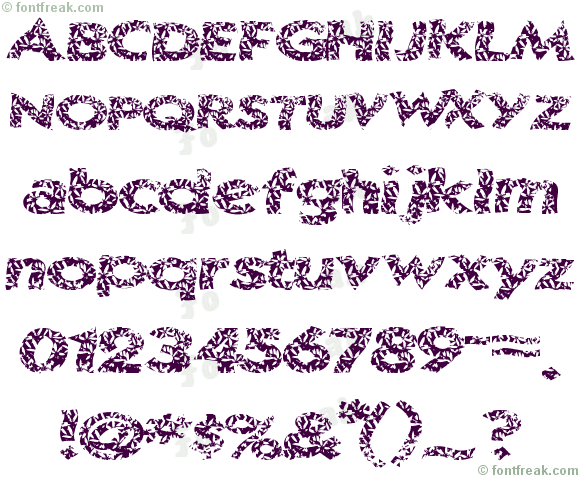
SurfShack
Introducing the SurfShack font by Xerographer Fonts, a unique display typeface that embodies the essence of beach culture and laid-back vibes. Released in 2012, this freeware typeface is perfect for those looking to add a touch of fun and whimsy to their designs. The SurfShack font features a playful, hand-drawn aesthetic, characterized by its uneven stroke weights and organic shapes that mimic the fluidity of ocean waves. The slightly irregular spacing between letters adds to its casual charm, making it an excellent choice for projects that require a relaxed and inviting feel.
This versatile font shines in various use cases, including surf shop branding, beach-themed event flyers, and summer party invitations. Its distinctive style is also ideal for creating eye-catching restaurant menus, particularly for eateries that emphasize a coastal or surf-inspired theme. Graphic designers and small business owners alike will find this font particularly appealing, as it allows them to convey a welcoming atmosphere that resonates with their target audience.
Content creators can leverage the SurfShack font in social media graphics or blog headers, giving their online presence a unique edge. The font's decorative elements, reminiscent of splashes and textures found in nature, evoke a sense of adventure and fun, making it suitable for youthful and trendy brands.
What truly sets the SurfShack font apart is its ability to transport viewers to a sun-soaked beach, evoking feelings of nostalgia and relaxation. Whether you're designing for a client or your own personal project, the SurfShack font free download offers an accessible way to infuse creativity and character into your work. Embrace the spirit of the surf and let this font elevate your designs.